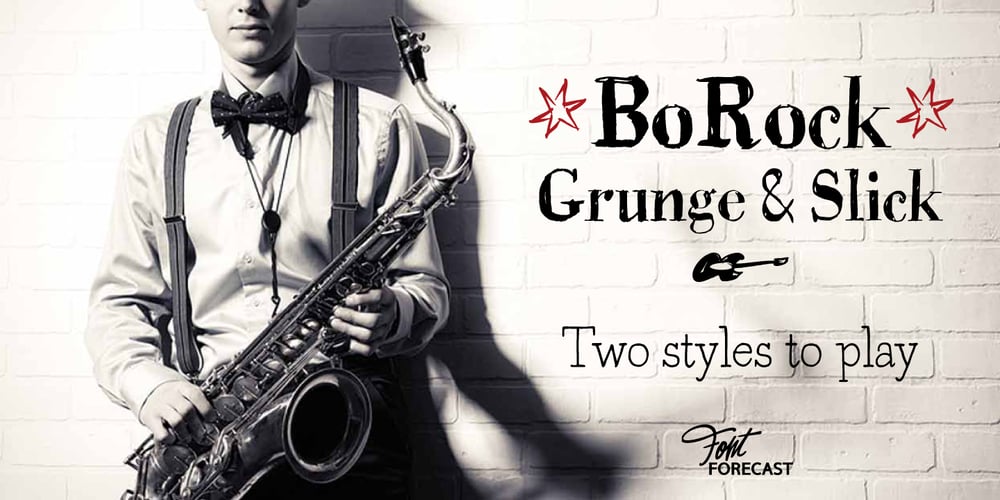
BoRock
BoRock font
BoRock Font Family was designed by Rob Versluys and published by Fontforecast. BoRock contains 2 styles and family package options. BoRock is a handcrafted font that comes in two pigheaded styles, inspired by the rock music scene. You can use BoRock instead of the usual neat serif fonts. BoRock Grunge is a rough crispy serif font, excellently suited for use in both display and body text. The BoRock Slick is what the name implies, a more smooth serif font, ideal for use in body text, but also suitable for titles and headings. You can use BoRock Grunge and BoRock Slick for magazines, advertising, T-shirts, posters and so on. By activating Discretionary Ligatures and typing _1 to _9 and *1 to *8 you can get your hands on some nifty bonus symbols. So get creative with BoRock and the stage is yours.